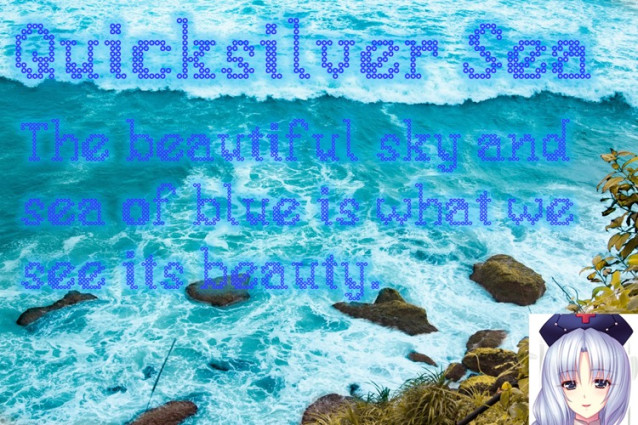
Quicksilver Sea Font is a simple and modern display font suitable for quotes, logos, headings, titles, and many more. Use it on any of your creative projects, and your designs will become outstanding!
Quicksilver Sea Font
| Classification: | Display Fonts, Modern Fonts |